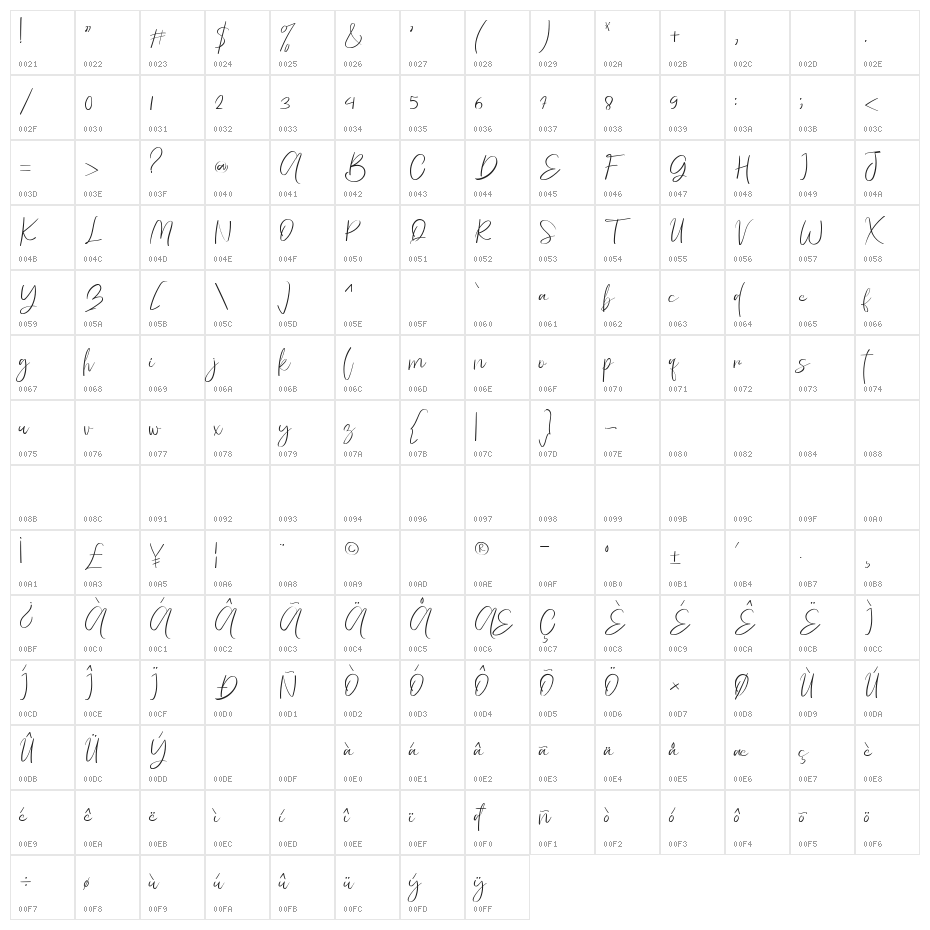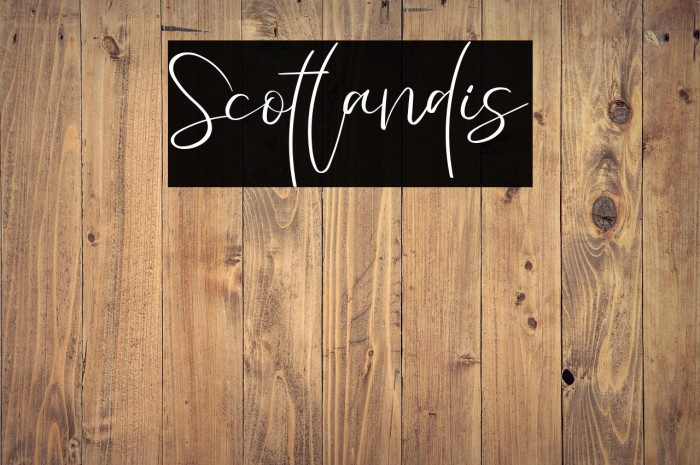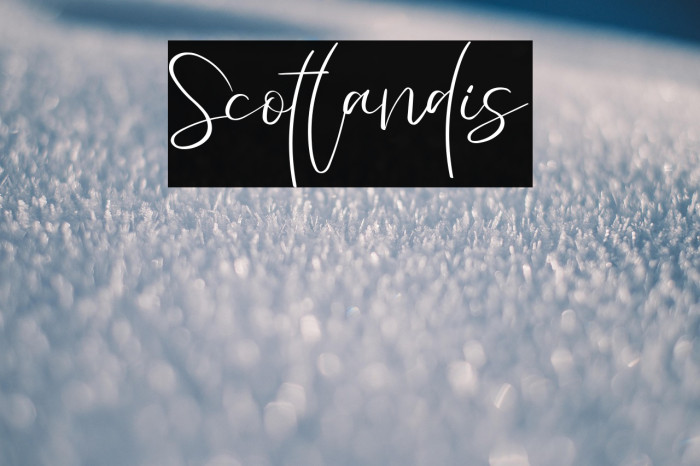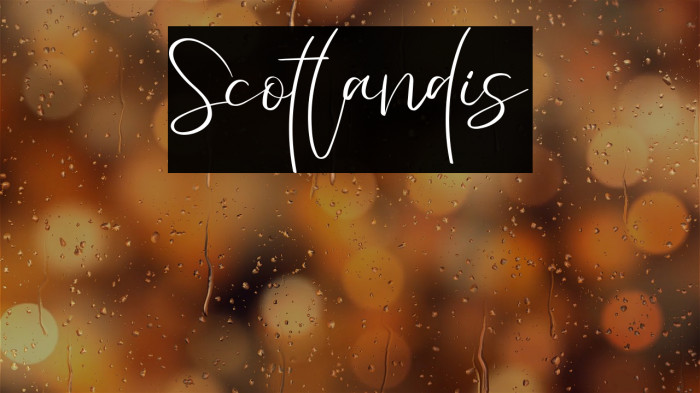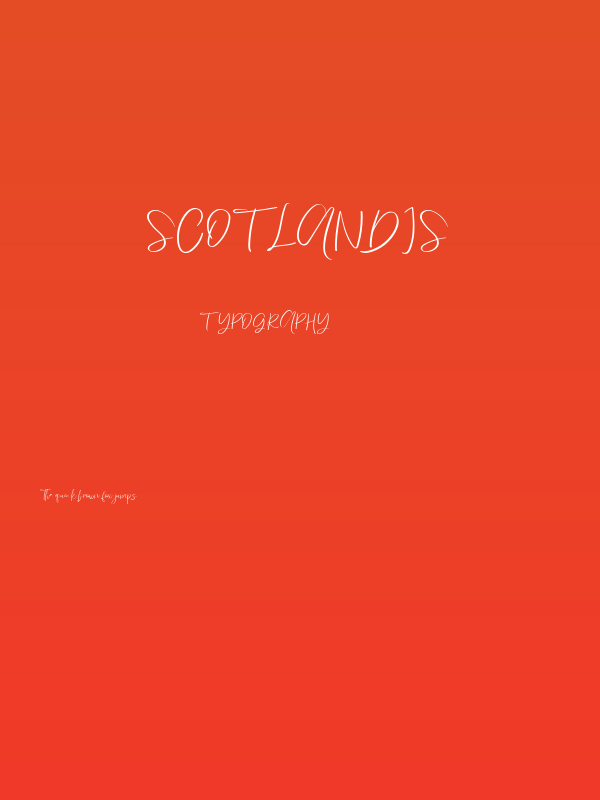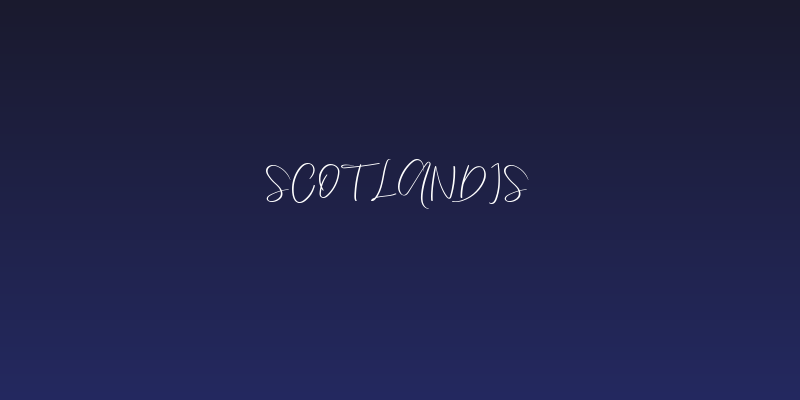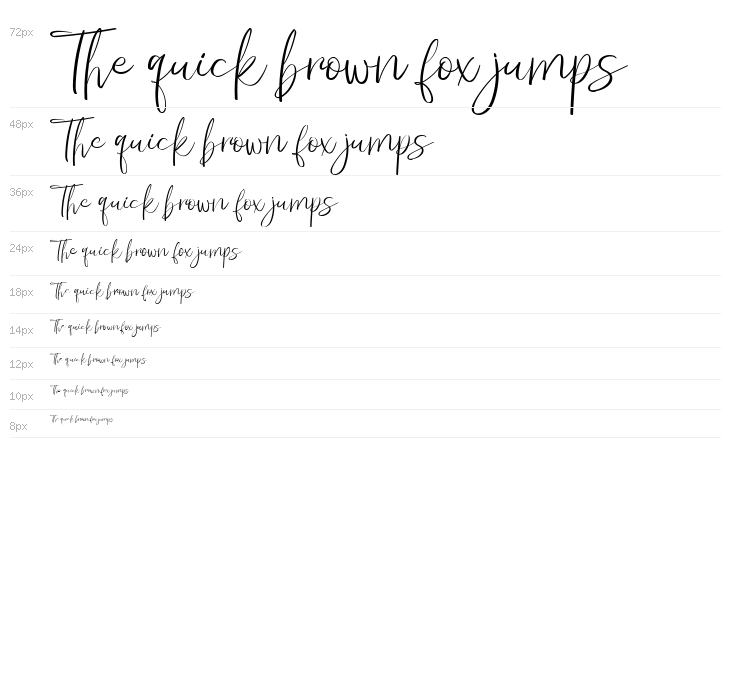
Scotlandis Font
Scotlandis Description
This font exudes a lively and dynamic energy with its fluid, cursive style. The characters are elegantly crafted with a natural, handwritten feel, showcasing a blend of smooth curves and sharp angles. The uppercase letters are bold and prominent, while the lowercase letters maintain a consistent flow, enhancing readability. Numbers and special characters are designed with the same artistic flair, making them visually cohesive with the alphabet. The overall aesthetic is both modern and artistic, suitable for projects that require a personal touch.
| Overall Style | Modern, Artistic |
| Use Case | Logos, Invitations, Creative projects |
| Proposed Projects | Ideal for wedding invitations, greeting cards, personal branding, and creative projects that require a touch of elegance and personality. |